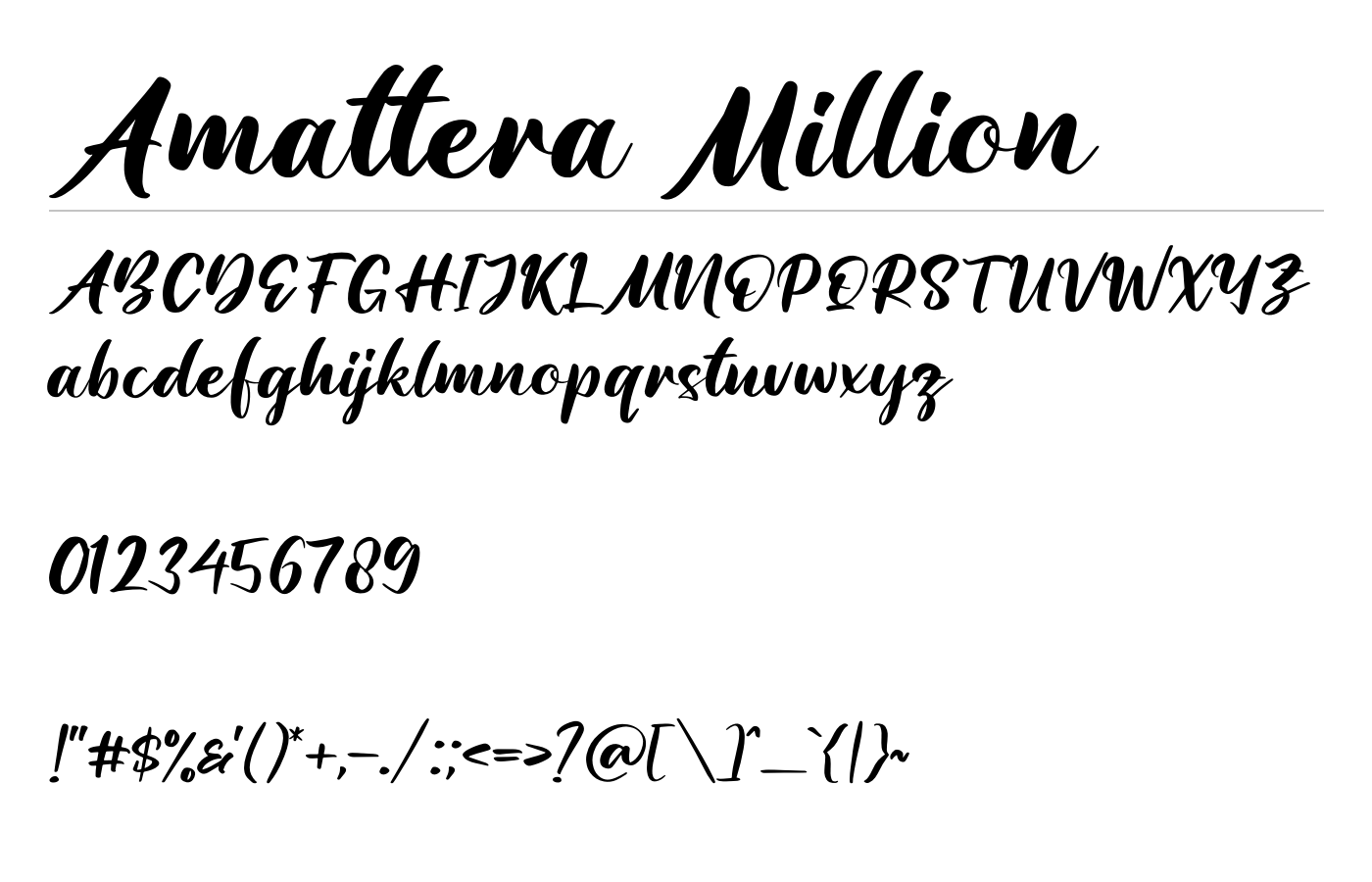
Amattera Million is a stylish script font with a smooth, flowing design that feels both elegant and lively. Its medium weight and slightly condensed letterforms, combined with fluid strokes and subtle contrast, make it perfect for adding a personal, handcrafted touch to branding, invitations, or headlines. This font works well where a warm, creative, and approachable vibe is desired, especially in fashion, beauty, and lifestyle projects.
Amattera Million Font
About Amattera Million Font